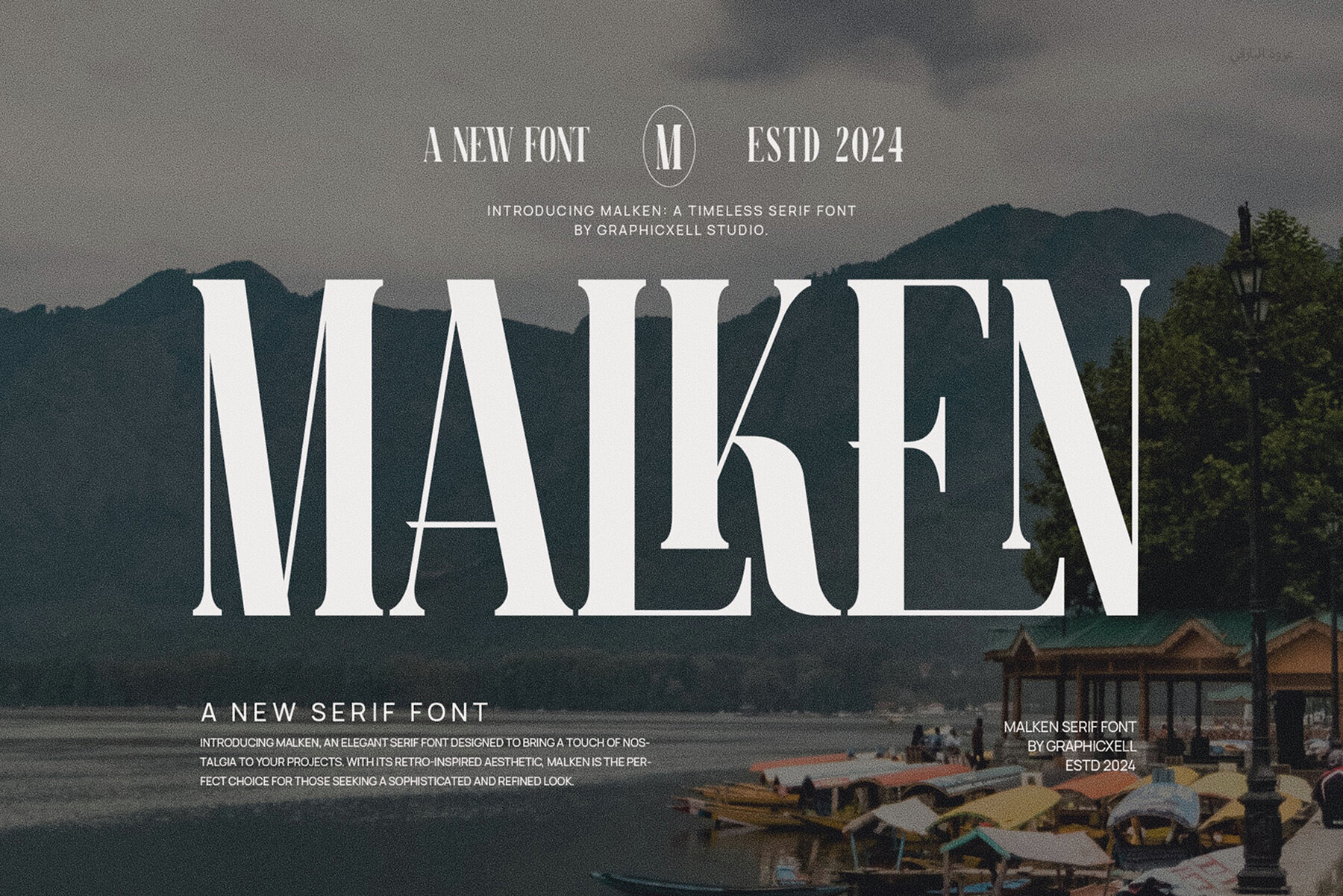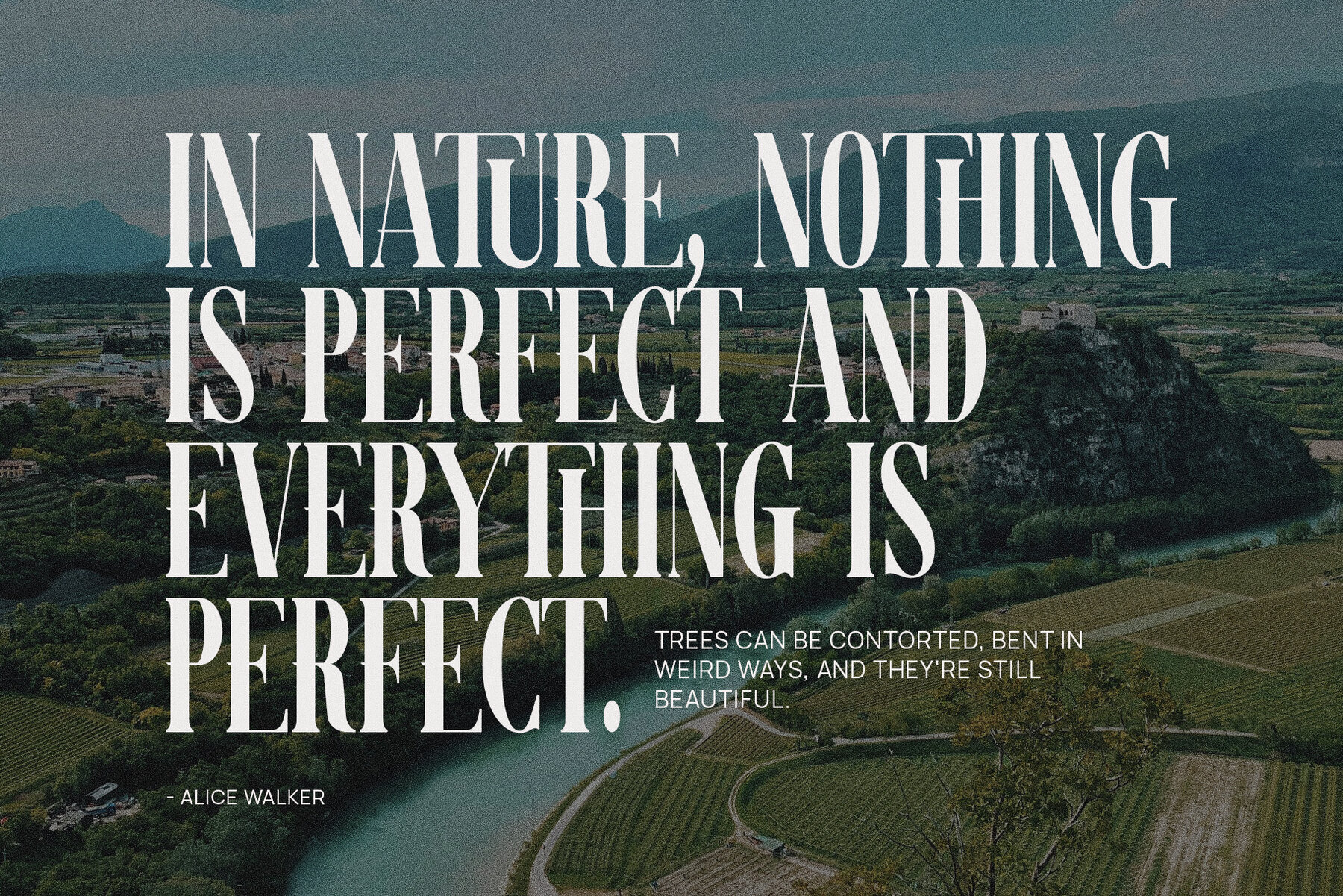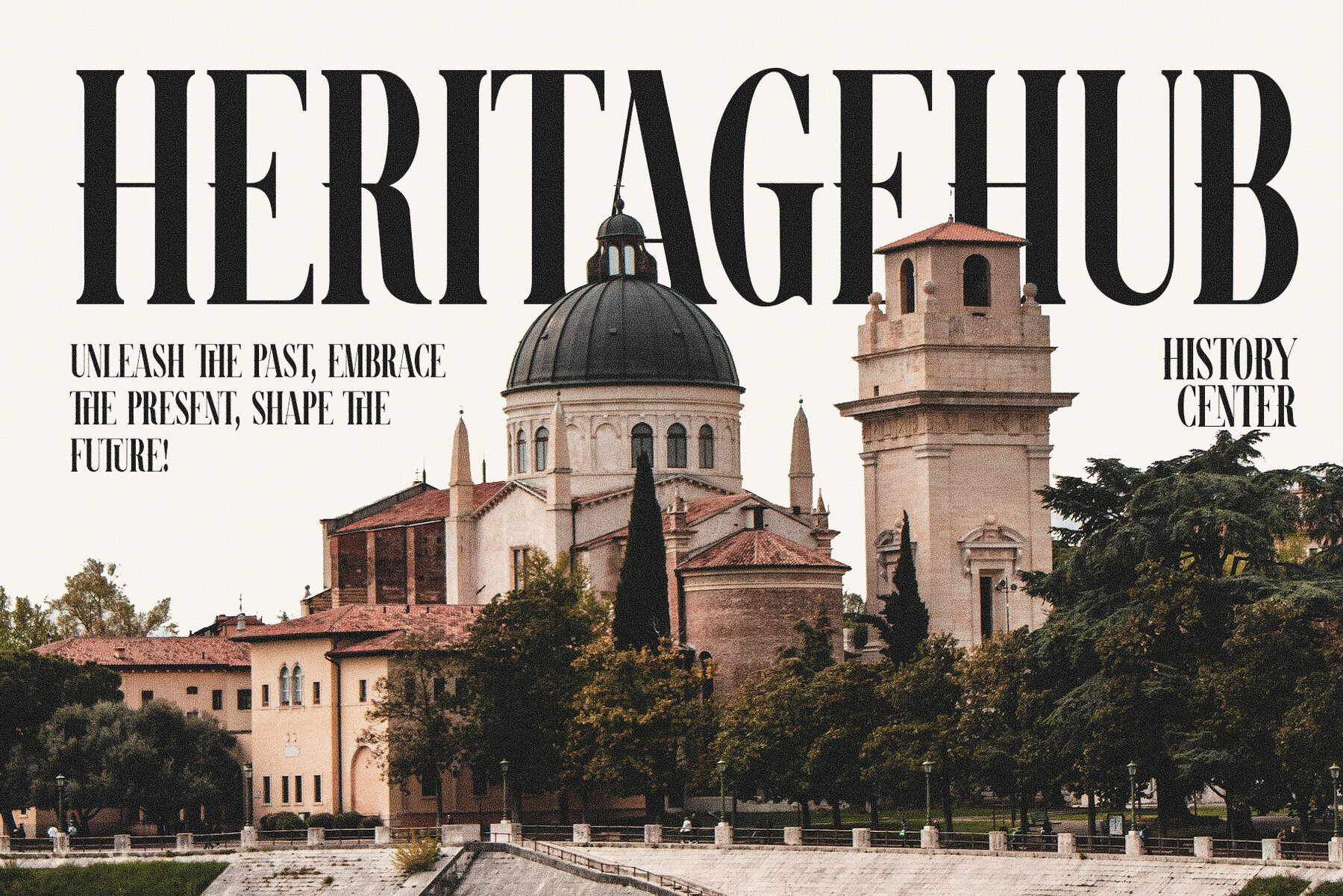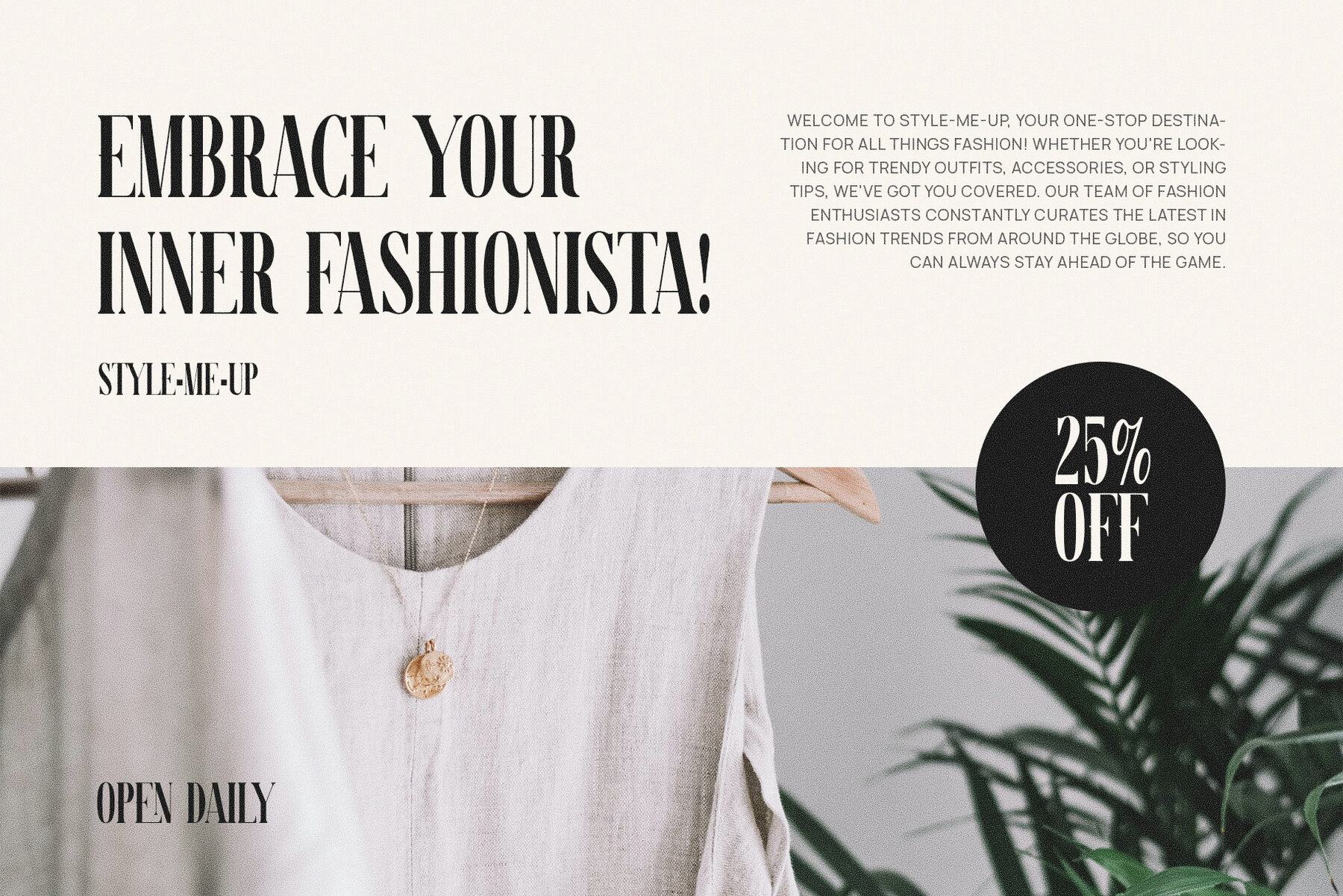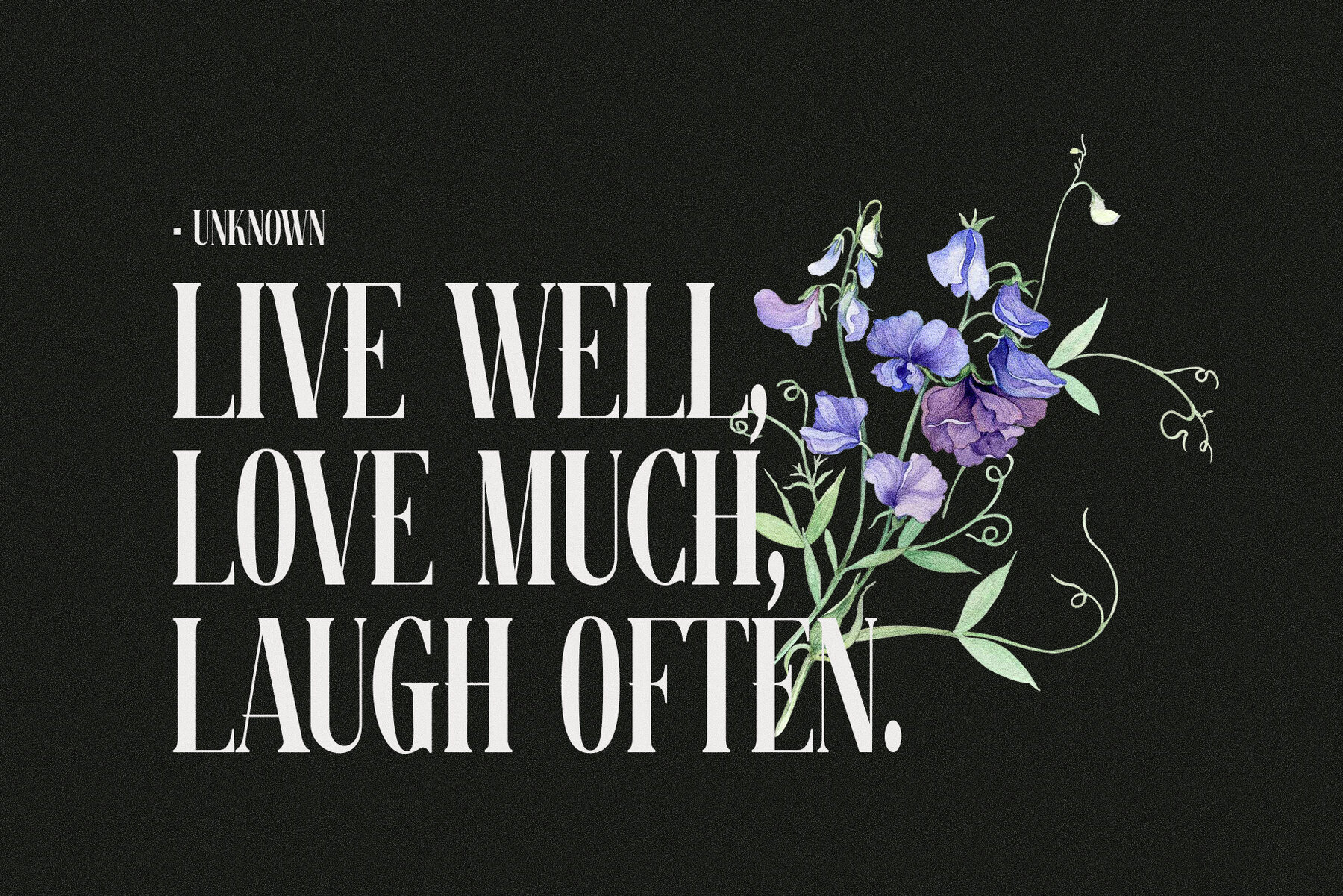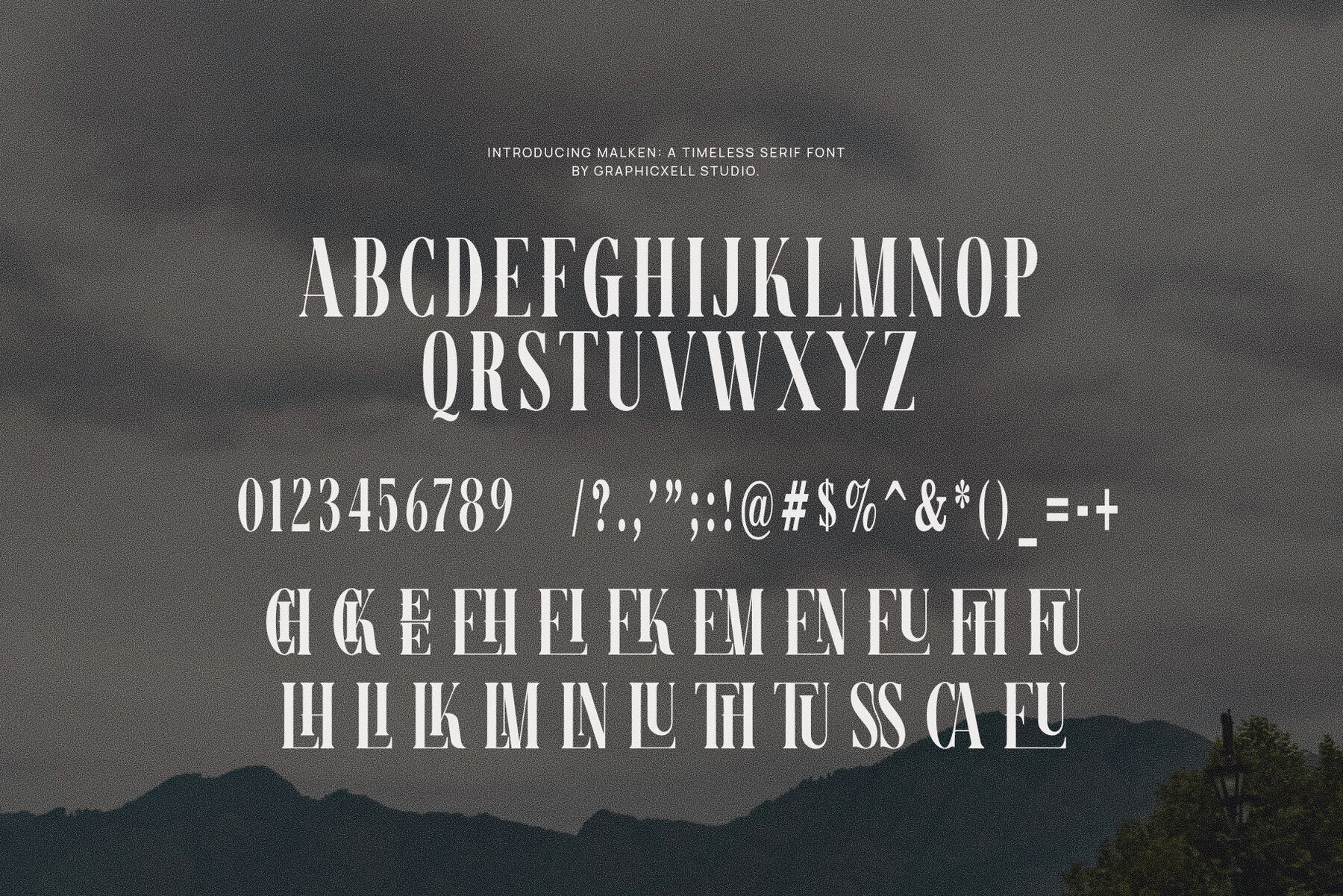
Malken Font
Malken Regular
Malken is a distinct serif typeface combining elegance with a modern style, ideal for various branding projects and logo designs. This font's versatility makes it perfect for wedding designs, social media posts, advertisements, product packaging, labels, photography, invitations, stationery, and more. Created with a high level of readability, Malken ensures satisfaction across diverse design needs. For optimal results, it is recommended to use Malken with Adobe Illustrator or Adobe Photoshop. Should you have any questions, feel free to reach out for assistance.Malken: Unique and Elegant Typeface for Versatile Branding